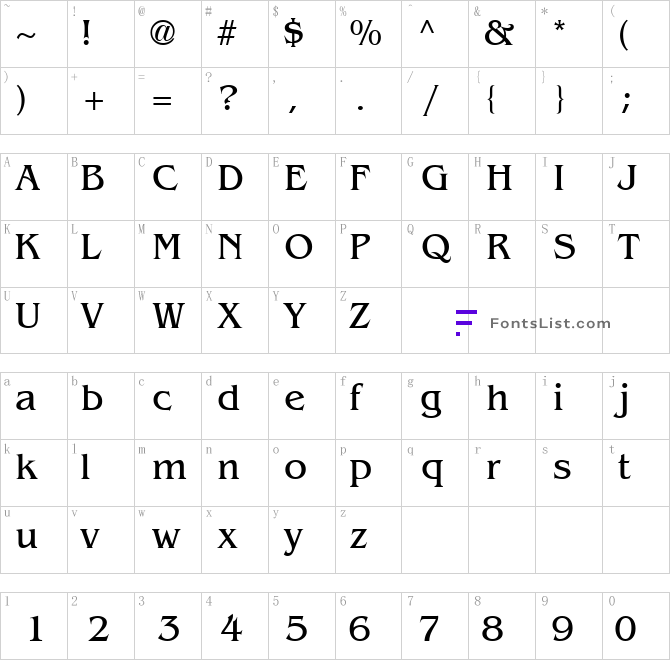
AGBengaly-Roman.ttf is a very beautiful artistic font, AGBengaly-Roman.ttf is widely used in the design and printing of various books and pictures,AGBengaly-Roman.ttf has a strong visual impact,AGBengaly-Roman.ttf is a commonly used font in newspapers, magazines and books, and is used in posters, e-commerce Poster design, store design, logo design, font design and other fields.AGBengaly-Roman.